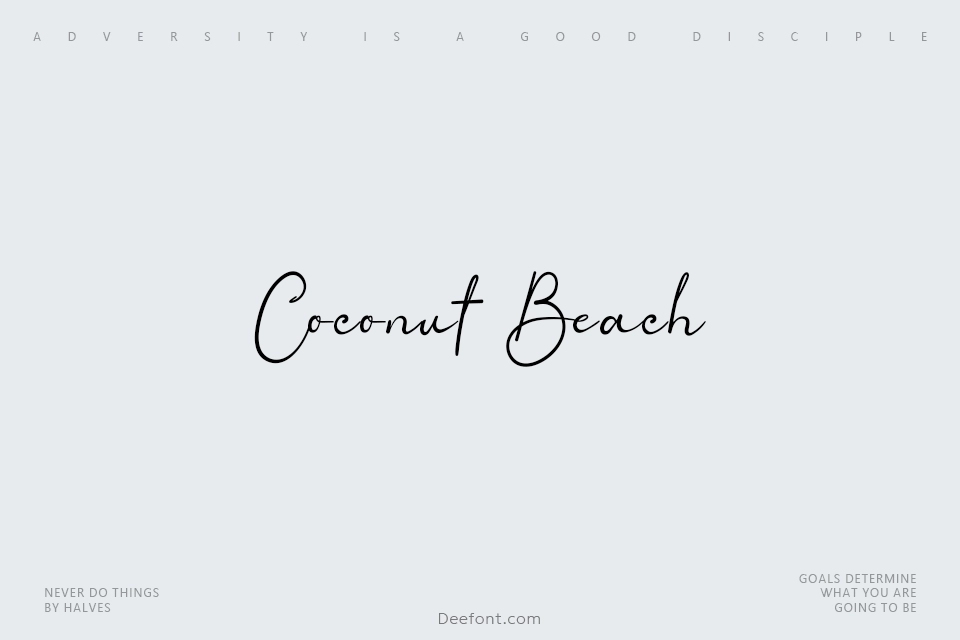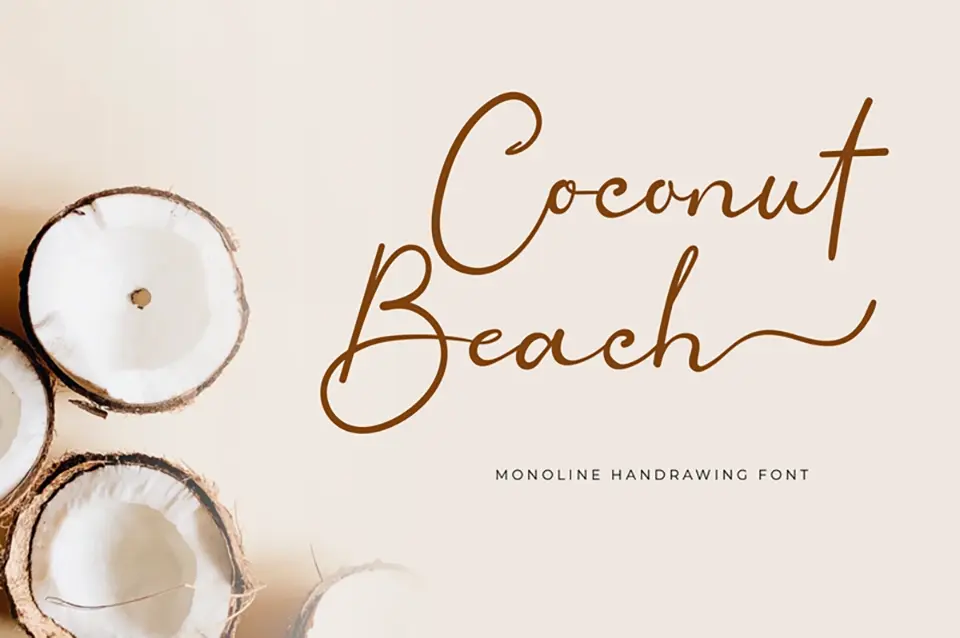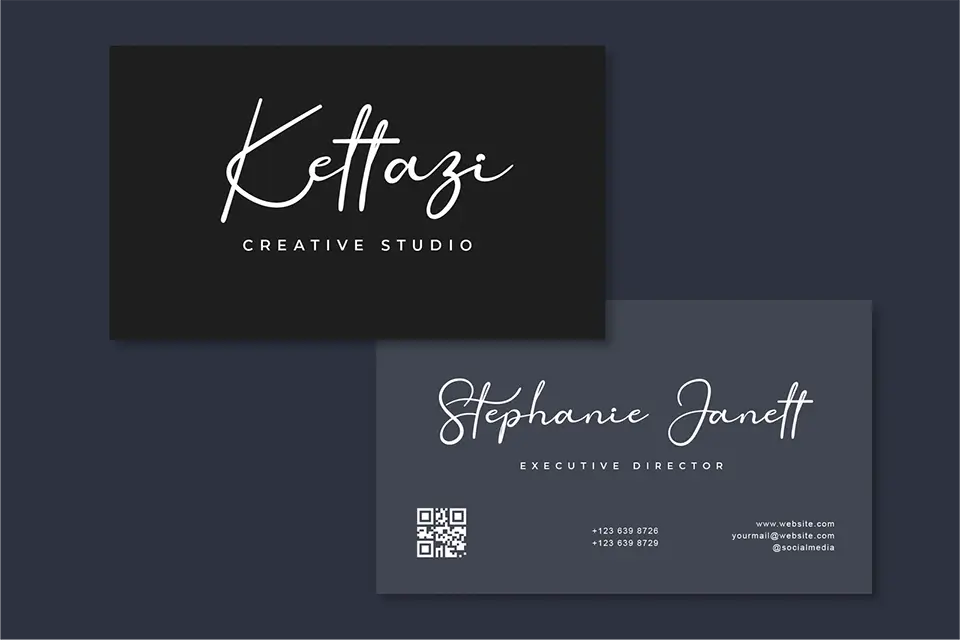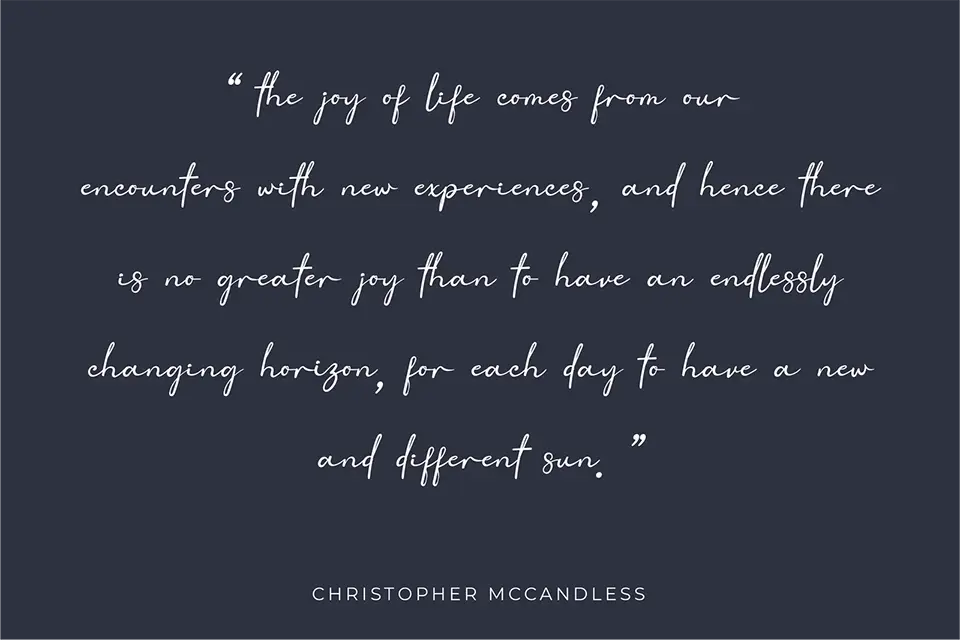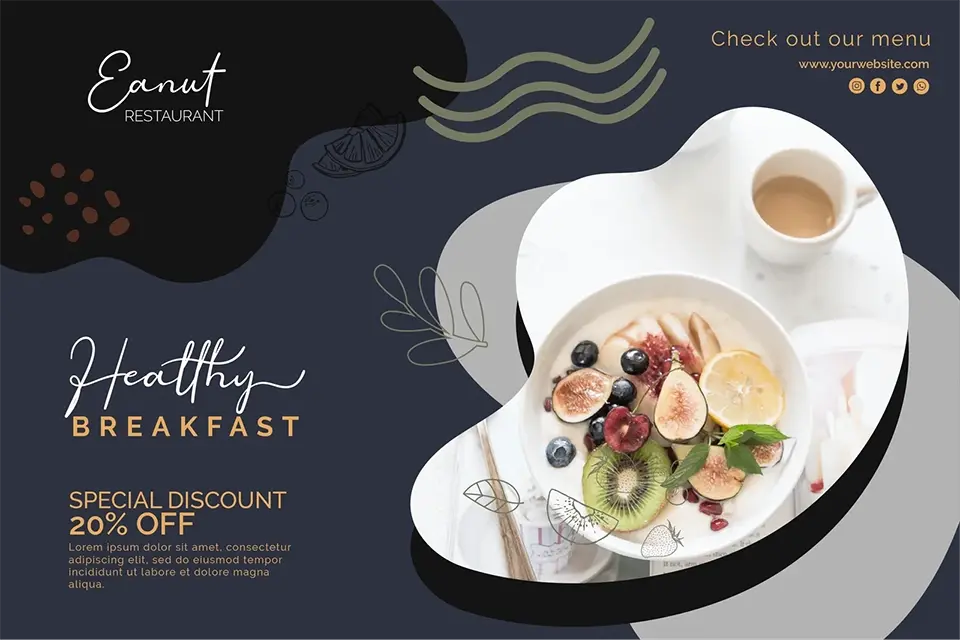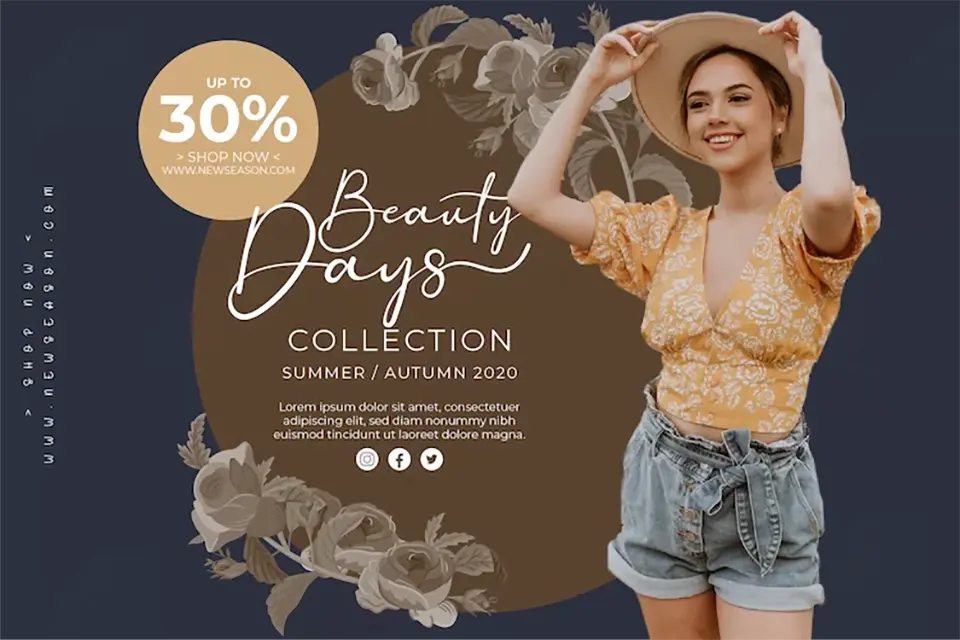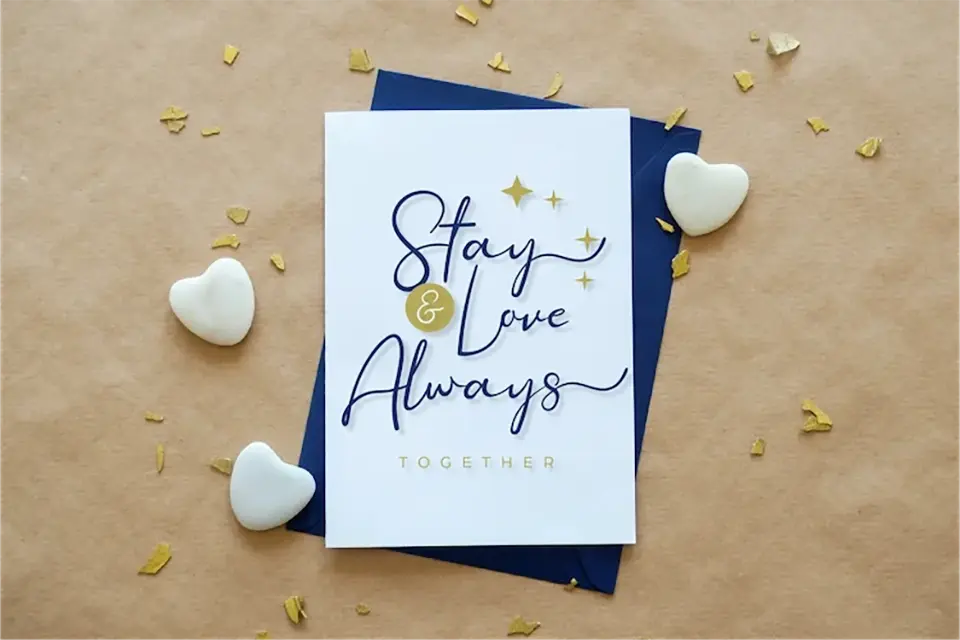
Coconut Beach Font
Coconut Beach is a flowing, cursive handwritten script font that exudes a relaxed and casual vibe. The elegantly connected letters feature smooth curves reminiscent of personal penmanship, offering a stylish and approachable design perfect for creative projects. Ideal for wedding invitations, greeting cards, personal branding, logos, and any project requiring a personal touch that combines elegance with warmth.